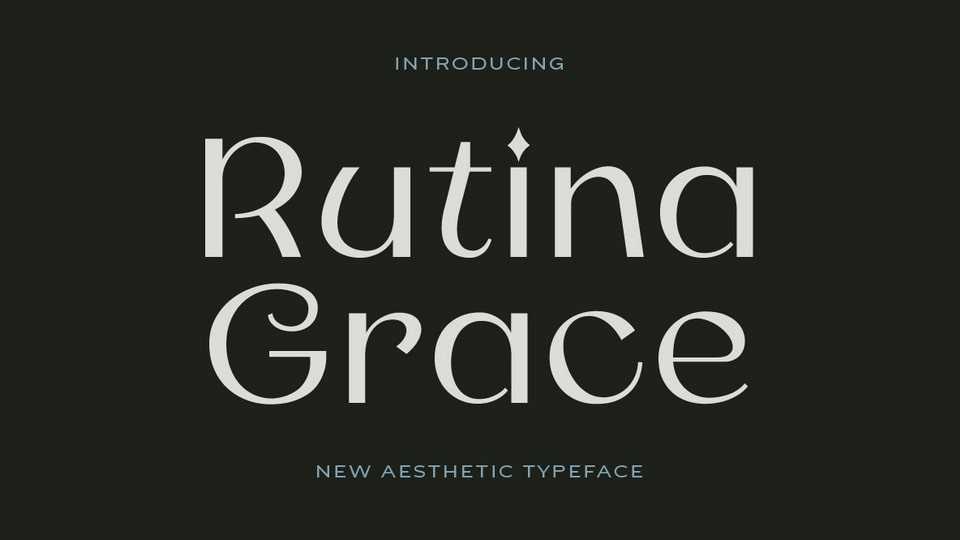
Download Rutina Aesthetic font, a typeface that combines a modern, elegant and inspiring aesthetic with a variety of unique styles and characteristics.
Designer: Yukita Creative